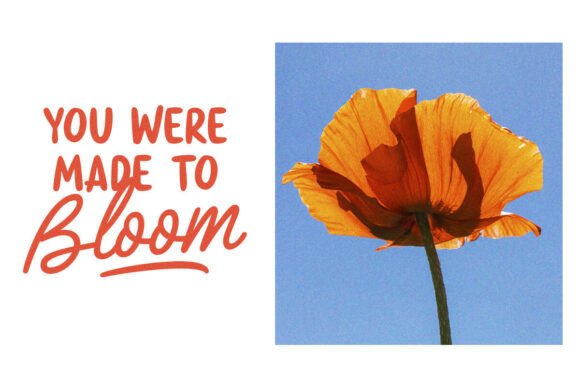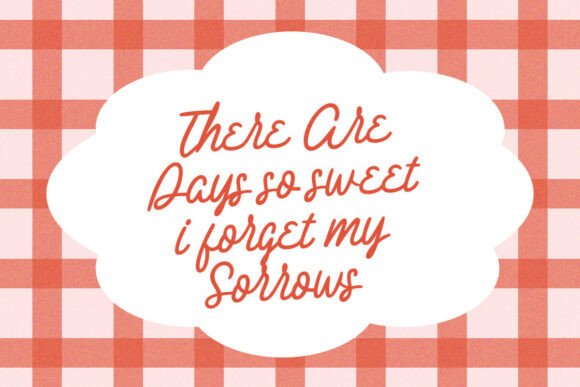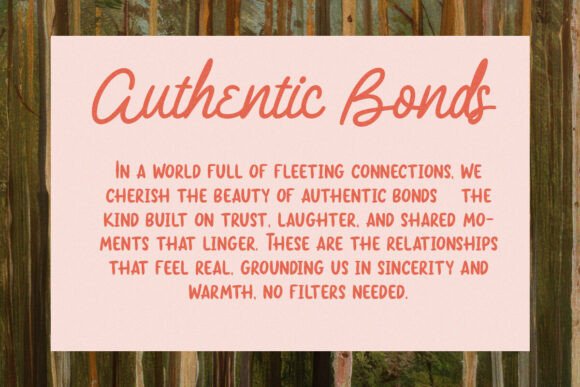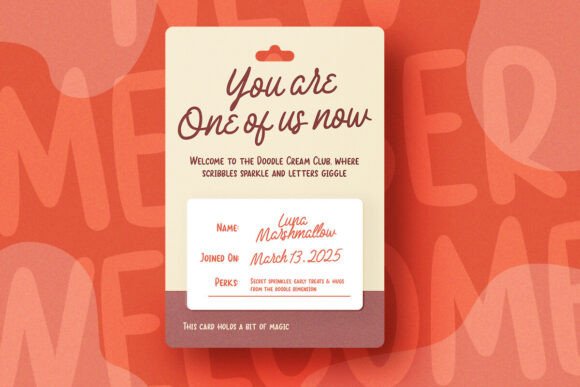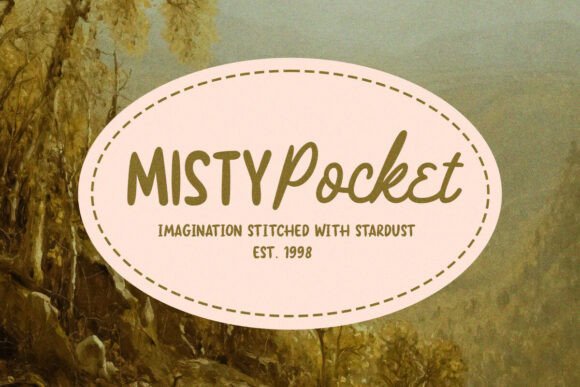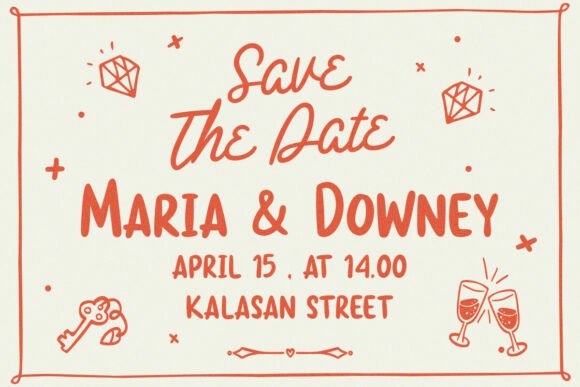
The Sweet Delight of Doodle Cream Font
Have you ever been in the middle of a design project, and suddenly, you’re stuck on finding the perfect font? I recall a recent experience where I was working on a kids’ party invitation, and my usual go-to fonts just weren’t cutting it. The design needed something fresh, playful, and cheerful. That’s when I stumbled upon the delightful Doodle Cream font duo. This charming typeface brings a fun, friendly, and cheerful vibe, making it perfect for kids-themed designs, sweets and bakery branding, or any creative project that aims to be lighthearted and inviting.
A Personal Review of Doodle Cream
- ✨ The playful sans and smooth script styles offer versatility for various design projects.
- ✅ Soft strokes and whimsical doodle touches add a warm and joyful personality to visuals.
- 💕 The font duo is perfect for creating eye-catching titles, headings, and body text for kids’ content, bakery branding, and more.
- 🎉 It’s incredibly easy to use and pairs well with a variety of other fonts and design elements.
While Doodle Cream is an excellent font, there are a few minor considerations:
- ⚠️ The script style can be a bit tricky to read at smaller sizes, so it’s best used for headings or large text.
- 🤔 Some users might find the font a tad too playful for very formal or corporate designs.
- Experiment with the font’s OpenType features, such as stylistic alternates, to add more character to your text.
- Dive into the glyphs panel to explore the font’s range of characters and OpenType features, such as ligatures and stylistic sets.
The Inspiration Behind Doodle Cream
Doodle Cream was crafted with the intention of bringing a smile to designs. Imagine a world where creativity knows no bounds, and every line, curve, and doodle adds to the joy of the visual experience. The designers aimed to create a font that feels like a warm hug – comforting, playful, and inspiring.
Q: What makes Doodle Cream suitable for kids’ designs?
A: Doodle Cream’s playful sans and smooth script styles, along with its whimsical touches, make it incredibly appealing and easy to read for kids.
Q: Does Doodle Cream support OpenType features?
A: Yes, Doodle Cream supports various OpenType features, including stylistic alternates, ligatures, and more, allowing for a wide range of creative expressions.
Q: Is Doodle Cream easy to pair with other fonts?
A: Absolutely! Doodle Cream’s friendly and approachable vibe makes it easy to pair with a variety of fonts, from sans-serifs to scripts.